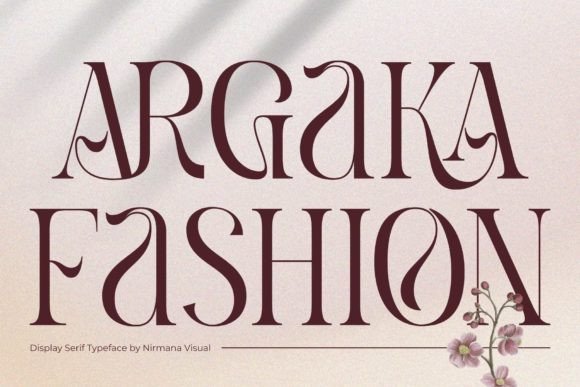
Discover the Timeless Elegance of Argaka Fashion Font
Remember the moment when you stumbled upon the perfect font to match your project’s aesthetic? For designers, that ‘aha’ moment is priceless. It’s the culmination of hours spent searching, experimenting, and refining until everything falls into place. For those who have experienced it, you know how thrilling it can be. And, for those who are still on the hunt, we’re excited to introduce you to a game-changing addition: Argaka Fashion Font.
This elegant serif display font boasts a delicate and classy look that’s sure to elevate your projects. With a balanced and varied design, Argaka Fashion Font is perfect for adding a touch of sophistication to your next creative endeavor. Whether you’re designing a luxury brand, a high-end magazine, or a bespoke invitation, this font is sure to make a lasting impression. As a valuable asset for designers, Argaka Fashion Font offers a level of refinement and poise that’s hard to find elsewhere.
Argaka Fashion Font Key Features
- Unique Characteristics: Argaka Fashion Font features a unique blend of modern and vintage elements, with intricate details and ornaments that evoke a sense of luxury and sophistication.
- Font Family: Argaka Fashion Font is part of a comprehensive font family, offering multiple weights and styles, including Regular, Bold, Italic, and Bold Italic, to cater to diverse design needs.
Argaka Fashion Font Review
When I first laid eyes on Argaka Fashion Font, I was immediately drawn to its luxurious and high-end feel. The elegant curves and refined lines ✨ truly evoke the essence of a fashion brand. The font is perfect for creating a sophisticated and stylish look for your logo, branding, or packaging.
The font is highly versatile and can be used in a variety of contexts, from luxurious clothing brands to high-end beauty products. It’s also worth noting that the font comes in multiple weights, from light to bold, allowing for a wide range of design possibilities.
While Argaka Fashion Font is a beautiful and effective choice for many projects, there are a few limitations to consider:
- ⚠️ Limited character set: The font does not include a comprehensive character set, which may limit its use in certain languages or for specific design projects.
- ⚠️ Not ideal for body text: Due to its luxurious feel, Argaka Fashion Font is not the best choice for body text. It’s better suited for headlines, titles, and other display typography.
Overall, I would give Argaka Fashion Font 4 out of 5 stars. It’s a stunning font that’s perfect for creating a high-end look, but its limitations should be carefully considered before using it for a project.
Tips for Getting the Most Out of Argaka Fashion Font
To get the most out of Argaka Fashion Font, use it for:
- High-end fashion designs and branding.
- Luxury product packaging and labels.
- Runway show invitations and programs.
Remember to pair Argaka Fashion Font with a clean and simple background to let the font be the focal point.